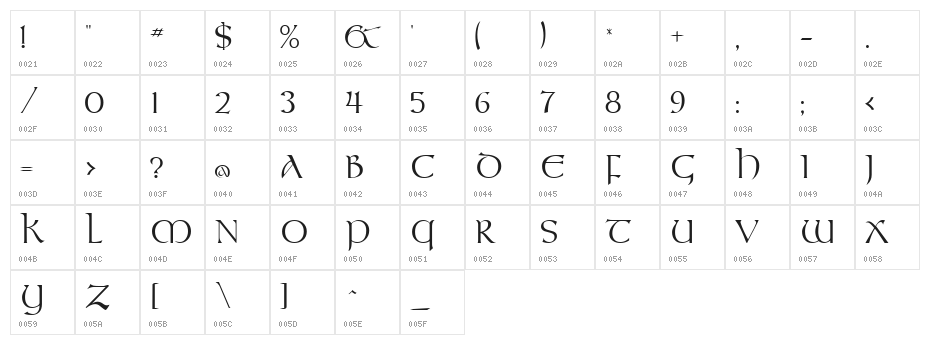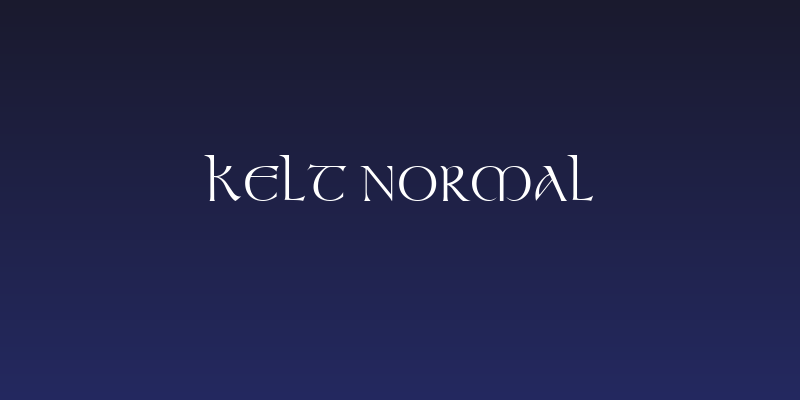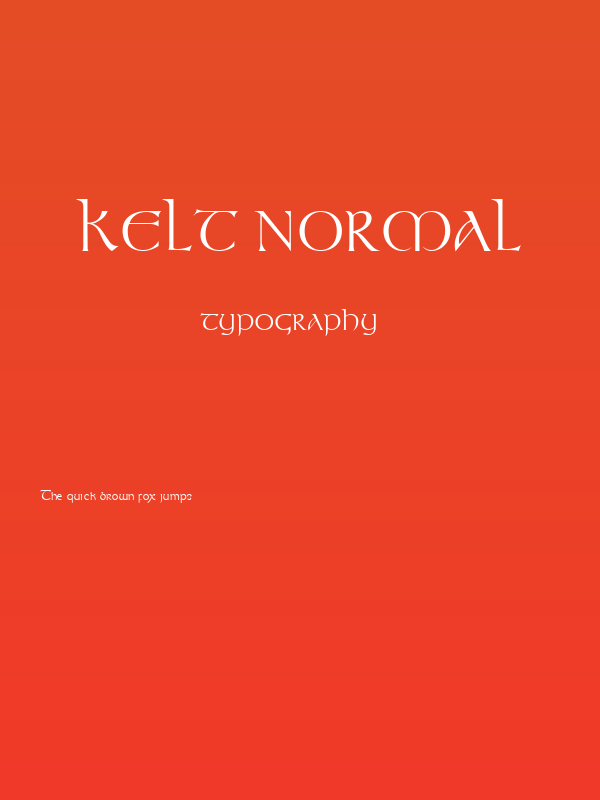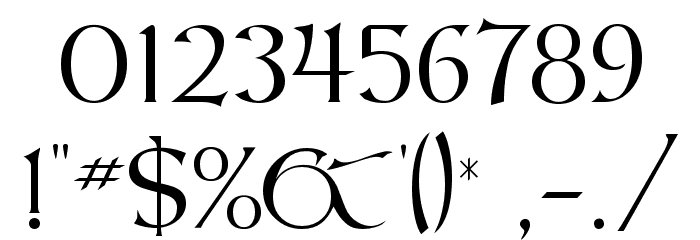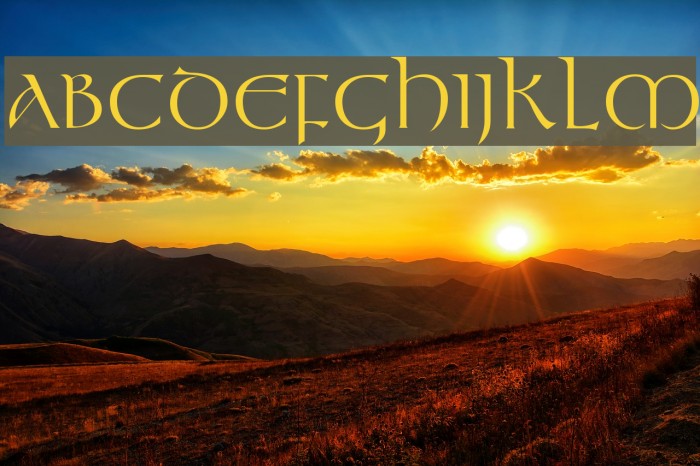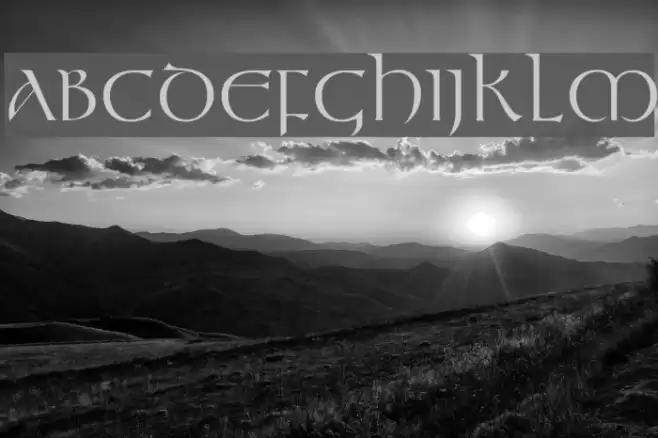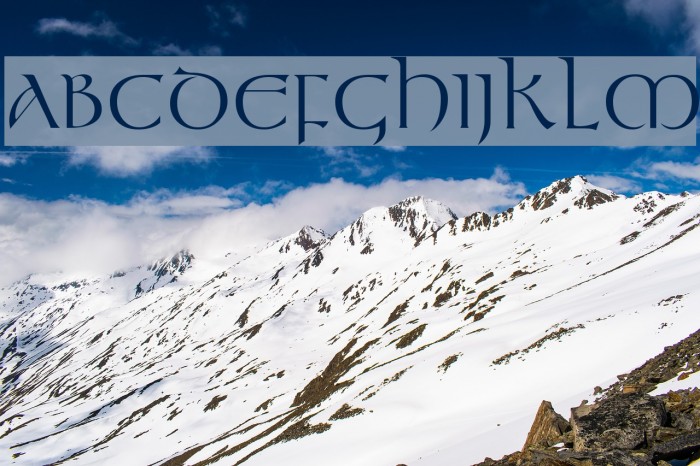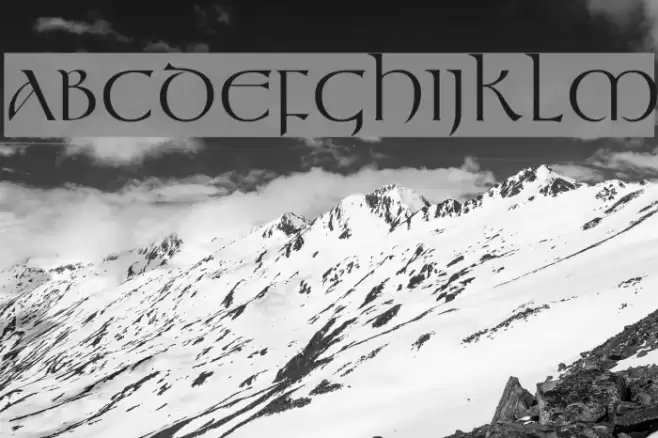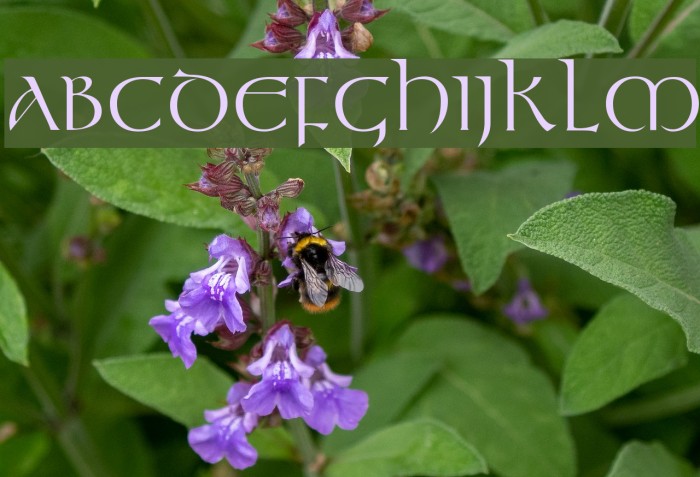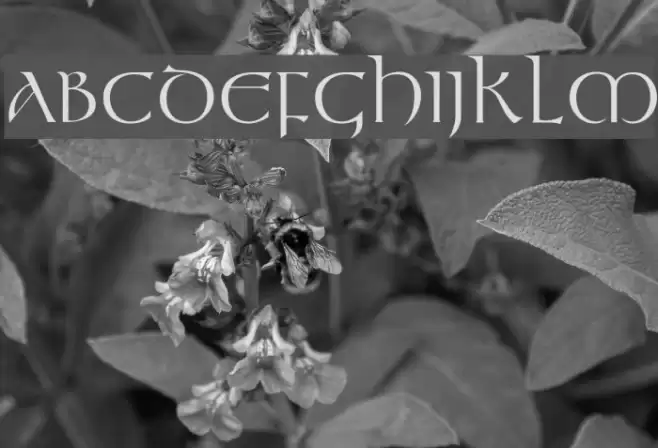
Kelt Normal Font
Kelt Normal Description
This font features a unique blend of traditional and modern elements, characterized by its sharp, angular serifs and flowing curves. The uppercase letters exhibit a distinct medieval influence, with elongated strokes and pointed terminals that add a sense of elegance and sophistication. The lowercase letters maintain a consistent style, providing a harmonious balance between readability and decorative flair. The numerals are bold and clear, ensuring they stand out while maintaining the overall aesthetic. Special characters are crafted with the same attention to detail, making them suitable for a variety of design contexts.
| Overall Style | Vintage |
| Proposed Projects | Ideal for projects requiring a historical or fantasy theme, such as book covers, posters, or branding for themed events. |